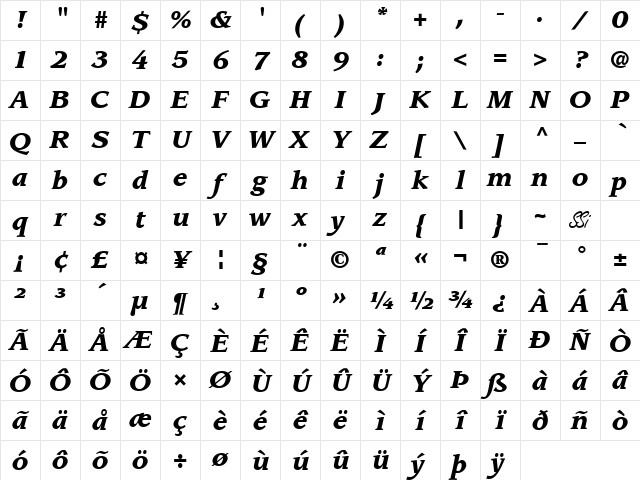
Advisor Black SSi Black Italic
Complete Advisor Black SSi Black Italic glyph index. Displaying only characters natively supported by Advisor Black SSi Black Italic font.
Design Context for Advisor Black SSi
Advisor Black SSi is a composed and adaptable typeface that performs quietly and consistently across a wide range of design contexts. The slanted form adds forward momentum and visual energy.
Pro Tip: Use Advisor Black SSi for emphasis, pull quotes, and subheadings where its slanted energy can add rhythm to the layout.